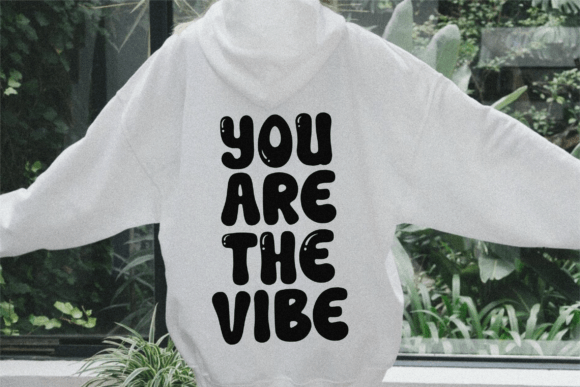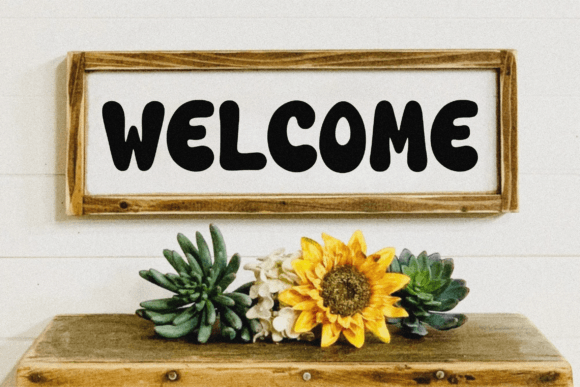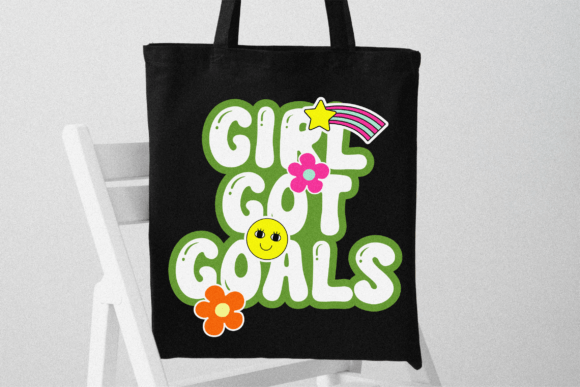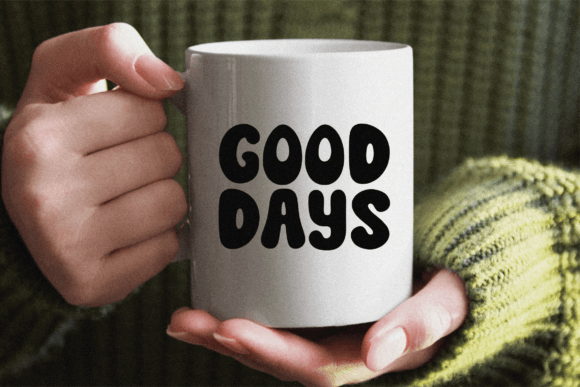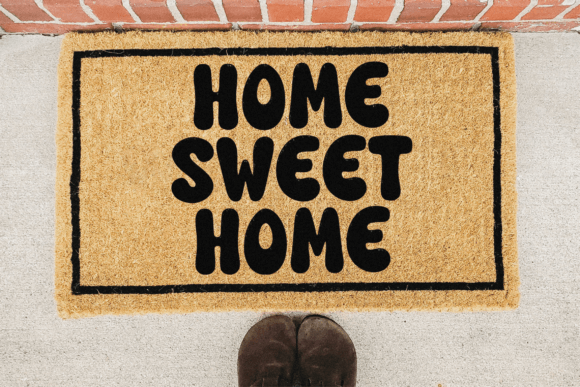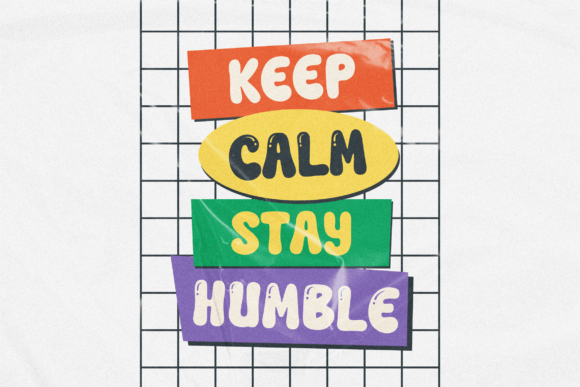
Introduction to Rocking Charming Font
Rocking Charming is a Fat Display Two Styles Font Rocking Charming is perfect for product packaging, branding project, megazine, social media, wedding, or just used to express words above the background.
Key Features of Rocking Charming Font